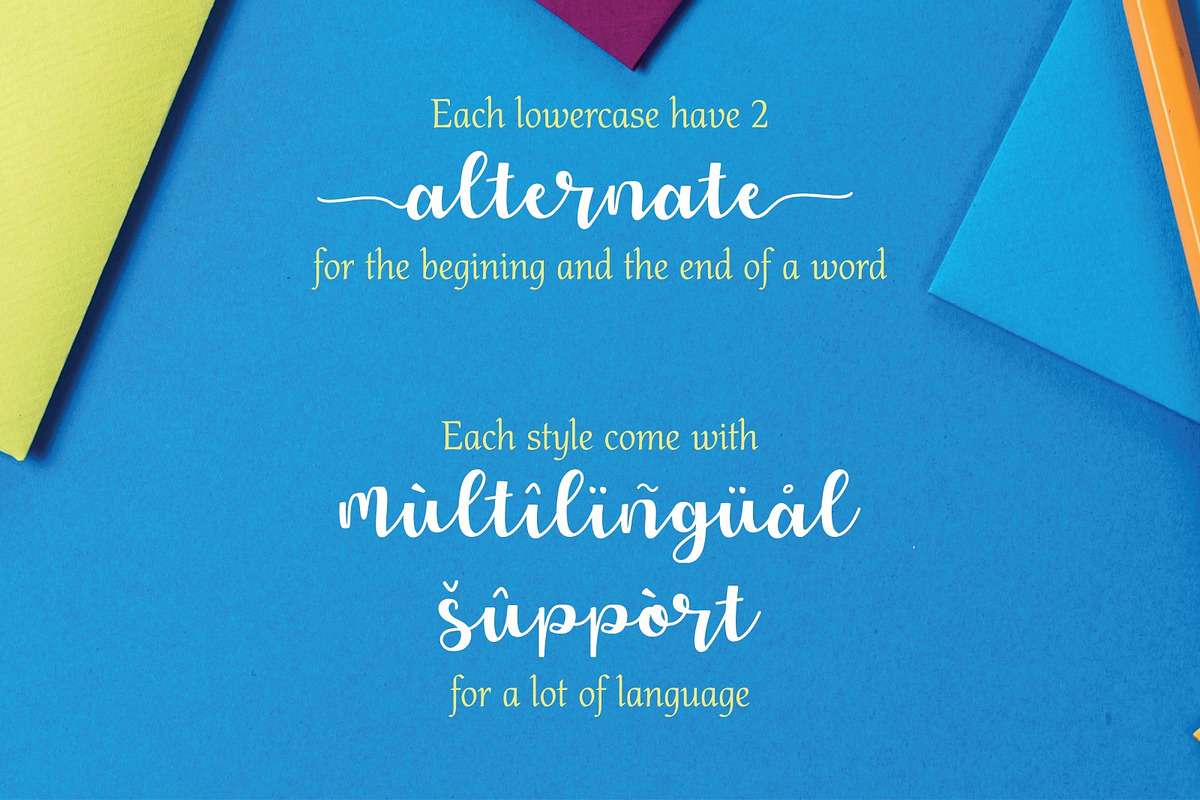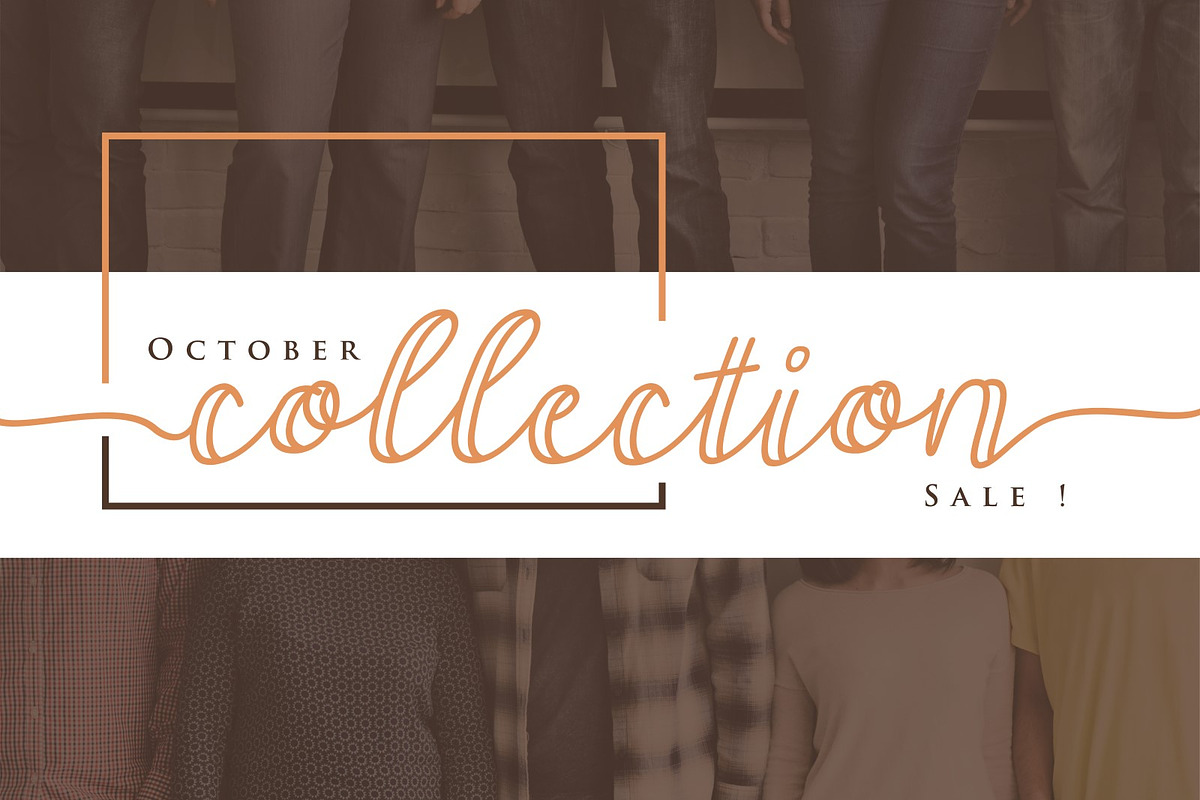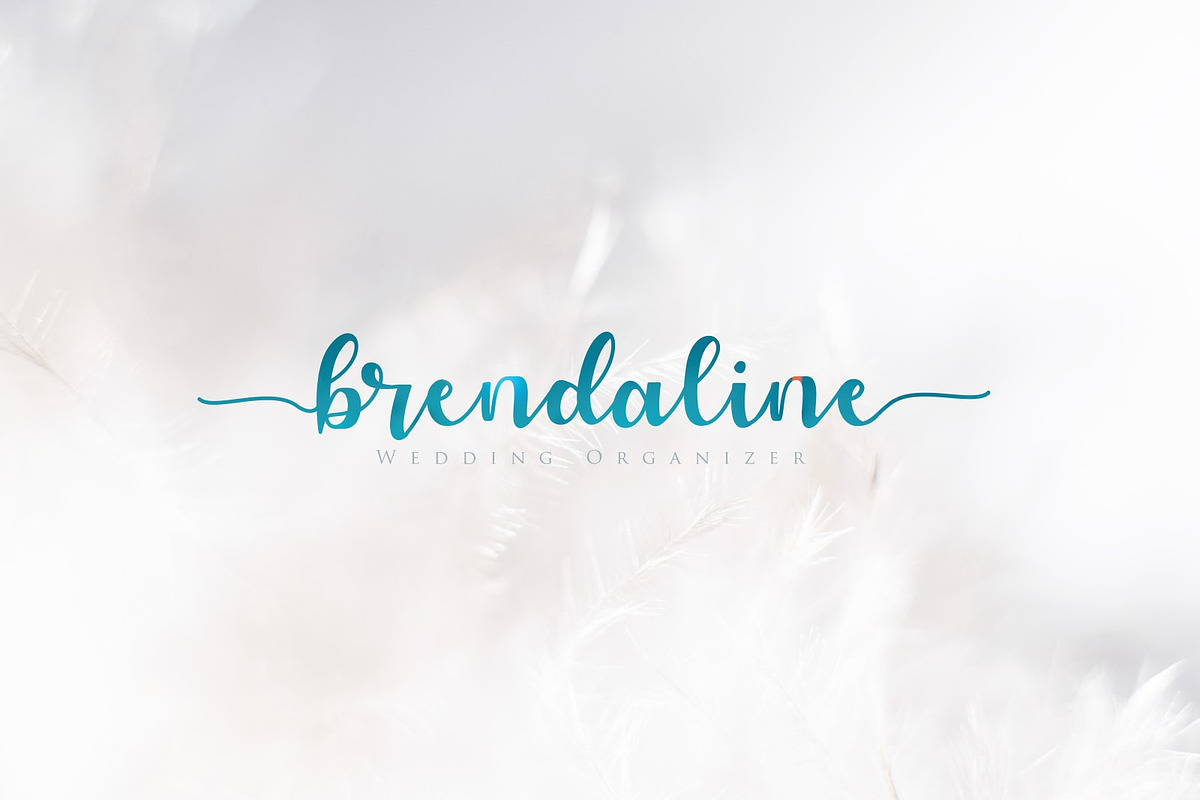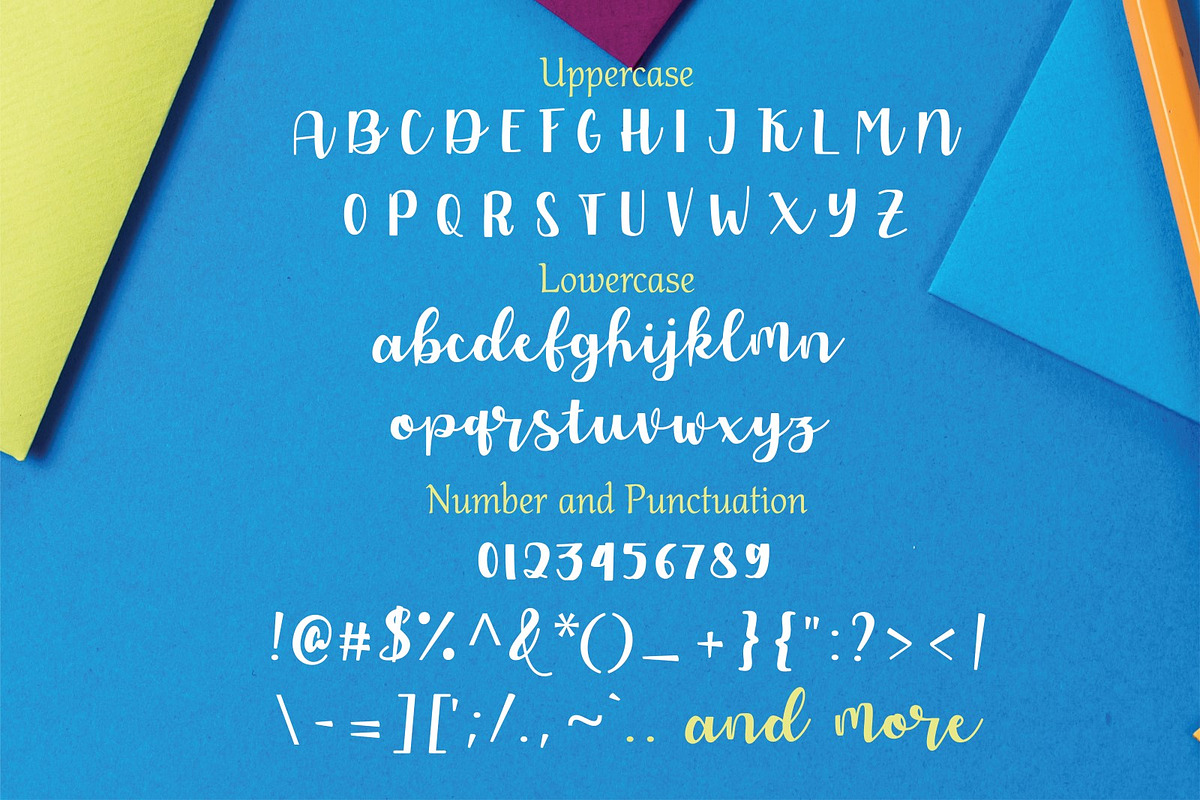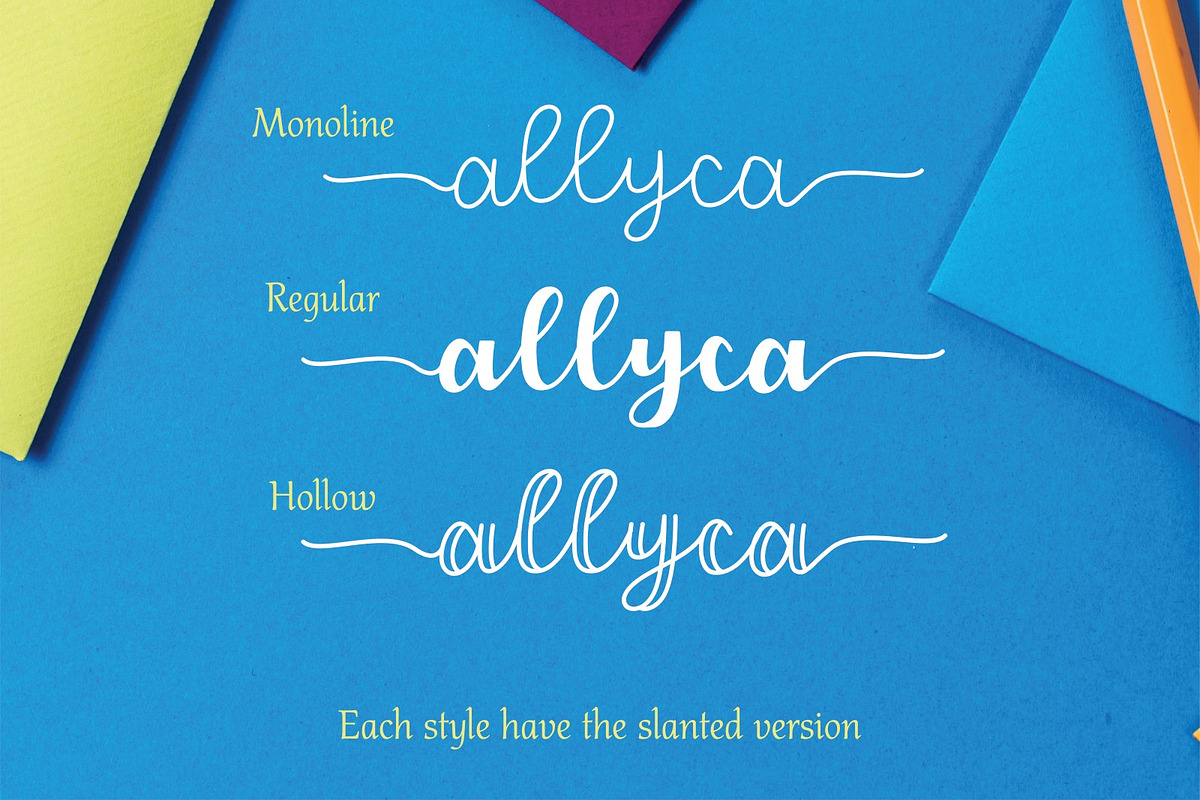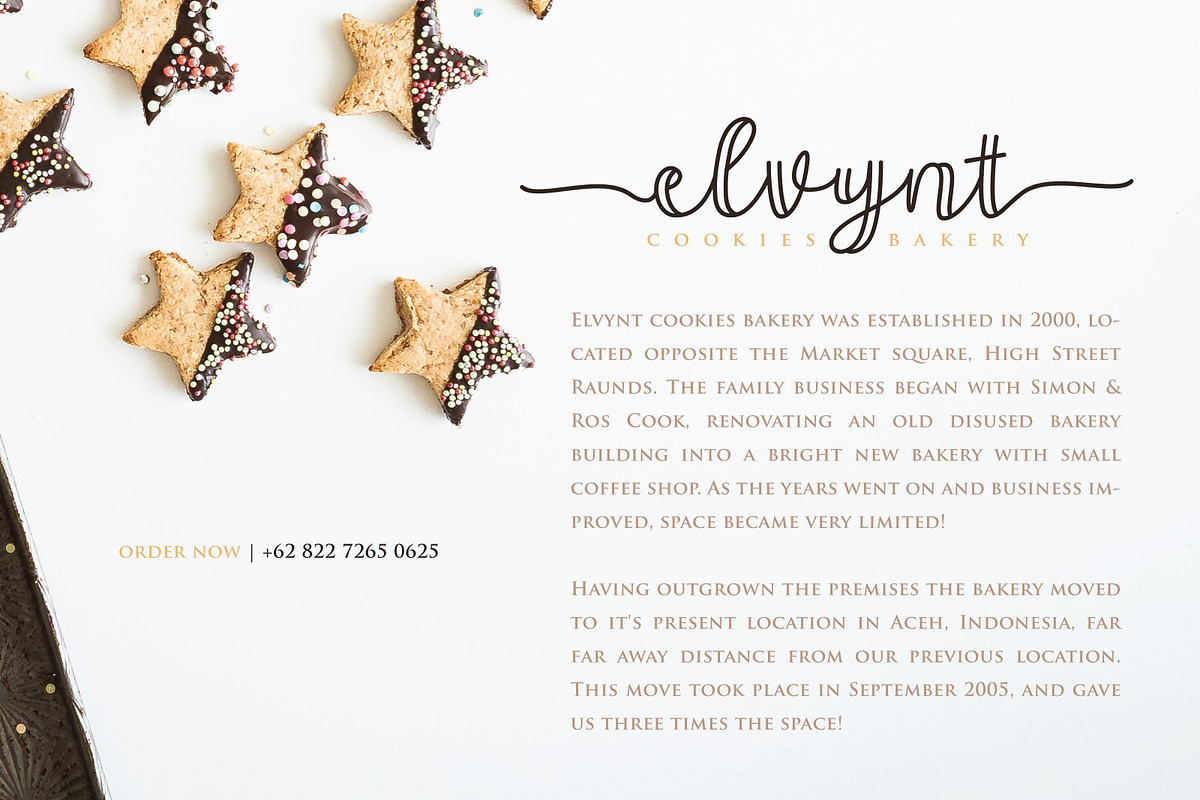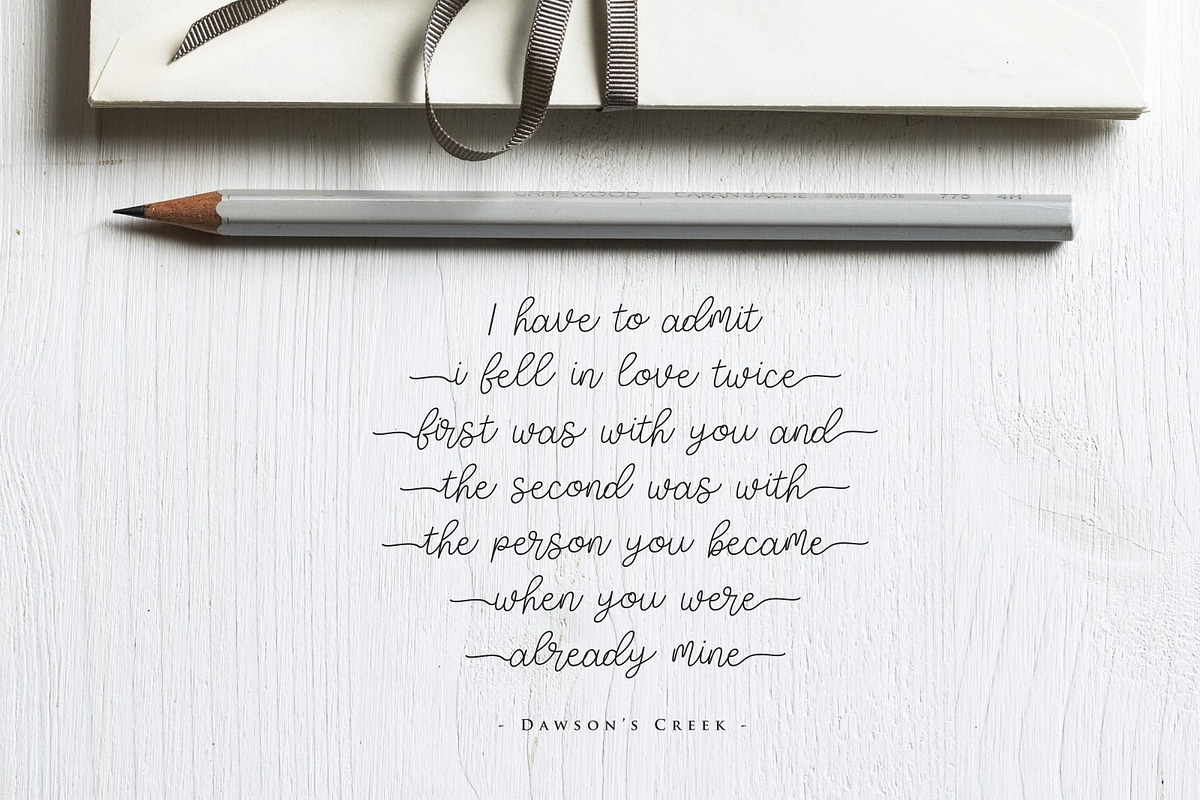
Allyca - Font Family
We want to specially introduce our new font ! Allyca Font Family,
Allyca is a new fresh & modern script with a handmade calligraphy style and decorative characters.
perfect font for invitation, logo, greeting cards, branding materials, business cards, quotes, posters, lettering and more !!
Allyca Font Family come with total 2130+ glyphs. With stylistic alternate, contextual alternate, and ligature. And the font has given PUA unicode (specially coded fonts). so that all the alternate characters can be accessed in full by a craftsman or designer.